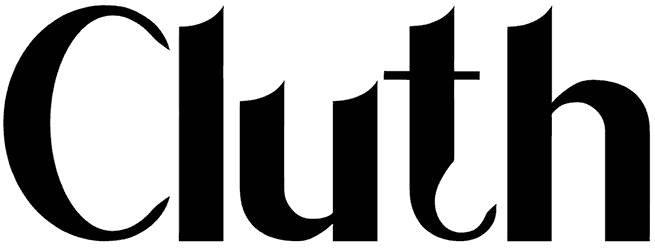
Cluth Font
Some fonts are built for quiet readability. Cluth is built for presence. With its bold construction, clean geometry, and confident visual weight, it has the kind of personality that immediately anchors a composition without feeling overly decorative. The letterforms are straightforward yet powerful, making the font especially effective when you need typography to carry the visual identity of a design rather than simply support it.
Logos, packaging, posters, apparel graphics, social media campaigns, sports branding, and headline-driven layouts all benefit from that strength. This fashion font doesn’t rely on complex details to stand out; it uses proportion, weight, and clarity to make an impact. Sometimes the most memorable typography isn’t the most elaborate; it’s the one that feels impossible to overlook.